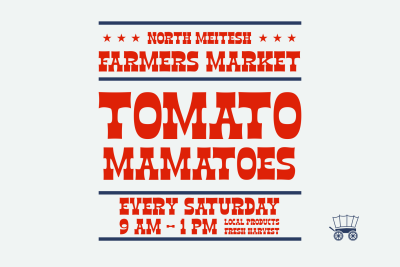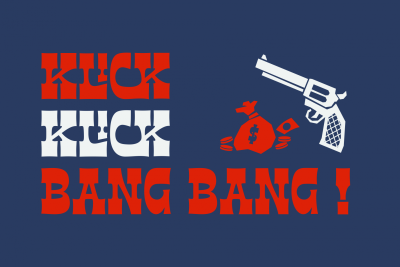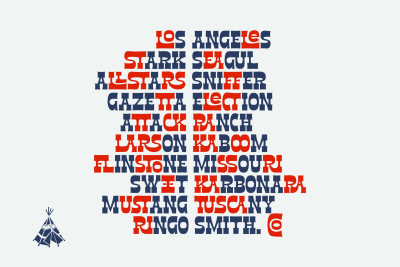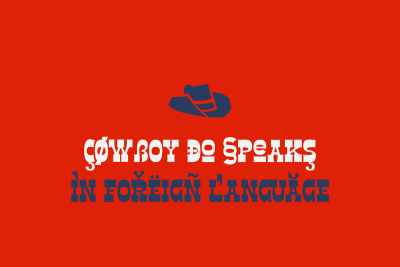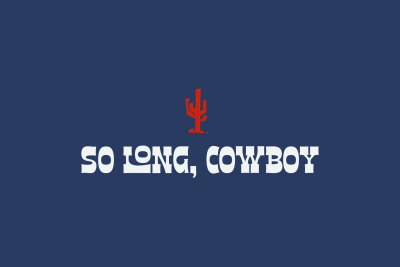
Vintage Font El Durango
El Durango
Vintage Font El Durango brings a Western charm that feels rugged and timeless. With bold, unique characters, this typeface is perfect for vintage-themed designs. Its style reflects classic Americana, which makes it ideal for logos, signage, and merchandise. Each letter echoes the spirit of dusty trails, saloons, and the open frontier, thus giving your project a touch of nostalgia with a refined look. Furthermore, this font’s vintage appeal instantly transports viewers to the old American West, capturing that rustic essence in every character.
Not only is this font great for restaurant logos, event posters, and vintage apparel, but it also adds a distinct personality to any project. El Durango’s rustic style makes a lasting impression, especially for designs that need an authentic, historical touch. Moreover, its versatility suits a wide range of projects with a Western or vintage aesthetic. Whether you’re creating a bar logo, a cowboy-themed invitation, or a unique poster design, El Durango’s bold charm will certainly help it stand out and make a statement.
Add Bold Style with Vintage Font El Durango
El Durango isn’t just about Western flair; it’s surprisingly versatile too. This font works well for branding, packaging, and social media graphics. Its bold look grabs attention in both digital and print media, especially in headlines and banners. Additionally, the strong lines and subtle curves create a commanding presence that’s ideal for cover designs or editorial layouts. Because of its solid structure, El Durango enhances readability while adding a unique stylistic edge.
What’s more, El Durango’s appeal lies in its simplicity and strength. It’s particularly effective in minimalist designs that need a unique touch. The characters balance strength and refinement, thus conveying reliability and tradition. With this font, your design feels authentic and resonates with those who appreciate classic themes. Ultimately, El Durango makes your project memorable, giving it a lasting impact. Its timeless aesthetic will captivate your audience and leave an impression that reflects both tradition and creativity.
The wait is over, meet El Durango…like it’s name, it represent the western culture, the old mining town, railroad…and vast mountain side.